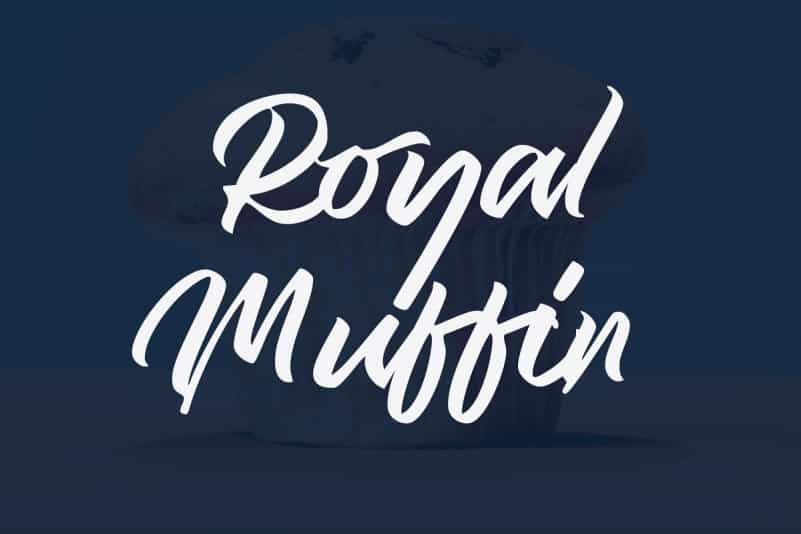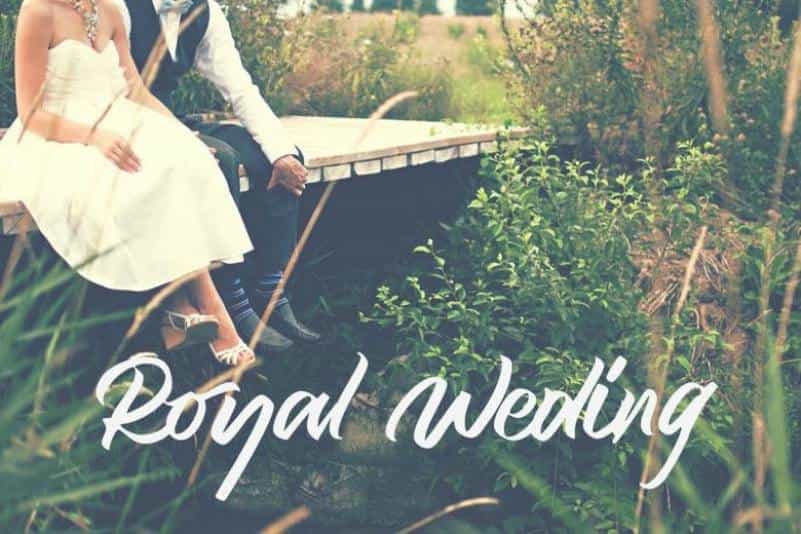
Discover Royal Muffin Script Font, part of the Brush Calligraphy collection—a versatile and unique font perfect for adding a personal touch to your projects. Download it for free and enjoy crafting designs with style, from invitations to social media posts. This font is available exclusively for personal use, giving you the freedom to create without limits. Unlock your creativity with Royal Muffin Script Font today!
These specialized should make your project stand out! Royal Muffin Script Font is a hand writing and brush font. Especially it is used that hand lettering can be strung together like music or for creating font backgrounds.